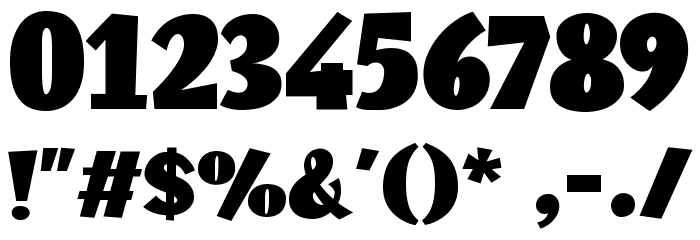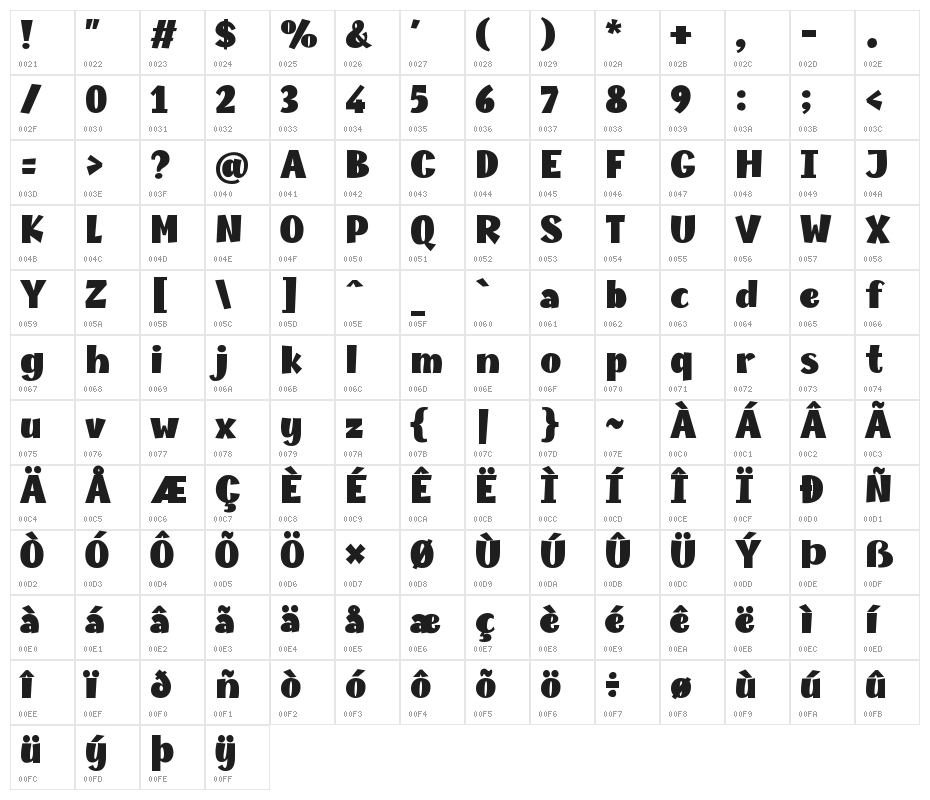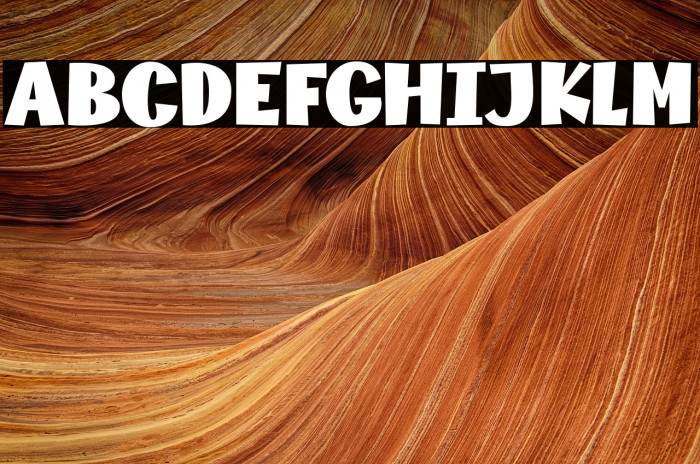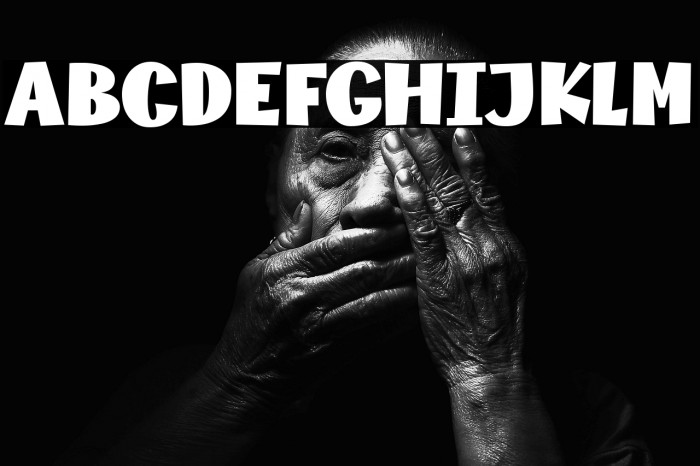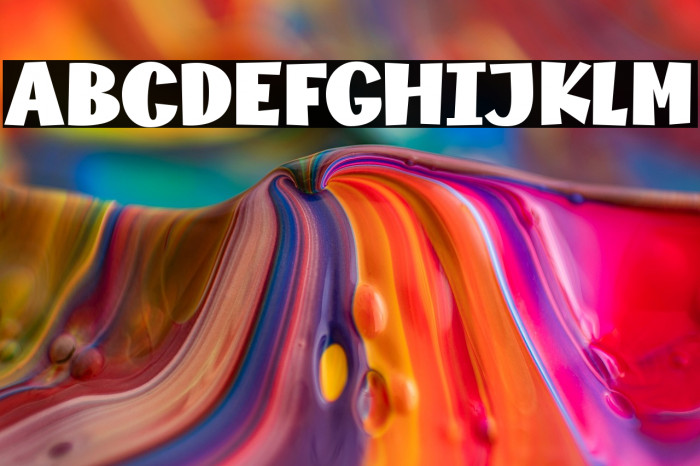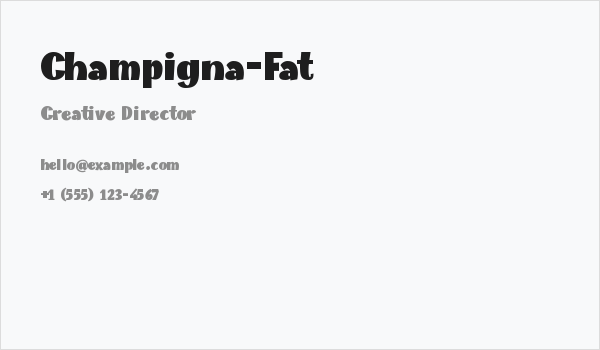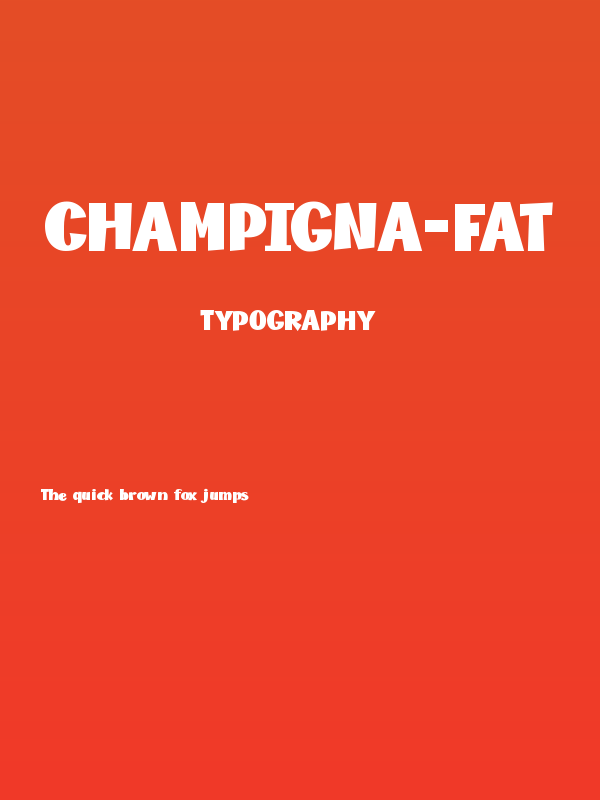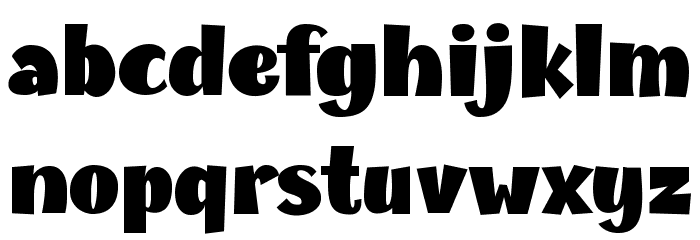
Champigna-Fat Font
Champigna-Fat Description
This font features a bold and playful design with exaggerated curves and thick strokes, giving it a whimsical and energetic appearance. The characters are wide and robust, with a slightly irregular shape that adds a sense of movement and fun. The uppercase and lowercase letters maintain a consistent style, while the numbers and special characters complement the overall aesthetic. This font is ideal for projects that require a lively and eye-catching typeface, making it suitable for creative and informal applications.
| Overall Style | Playful, Energetic |
| Proposed Projects | Ideal for children's books, playful branding, event posters, and creative advertising. |